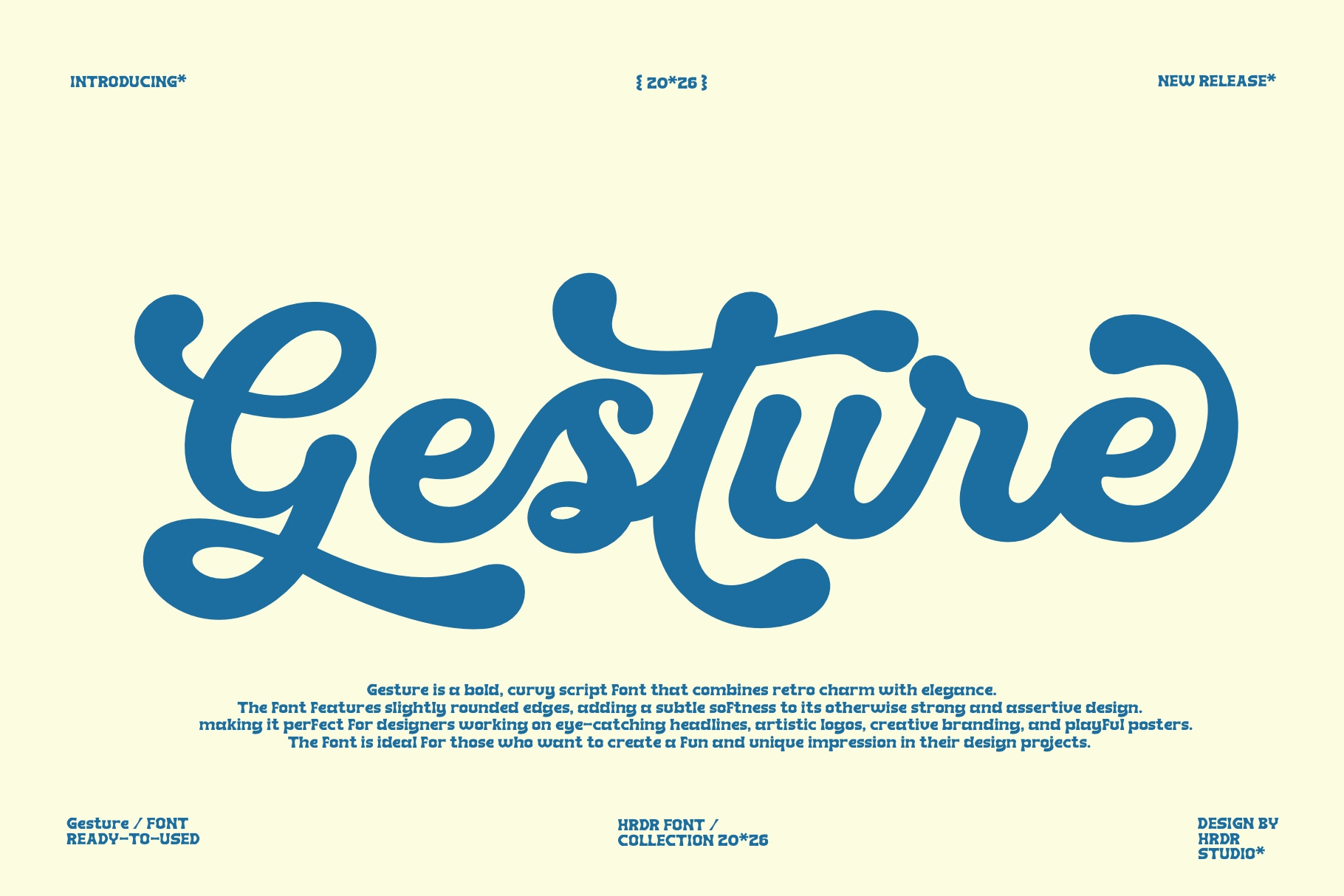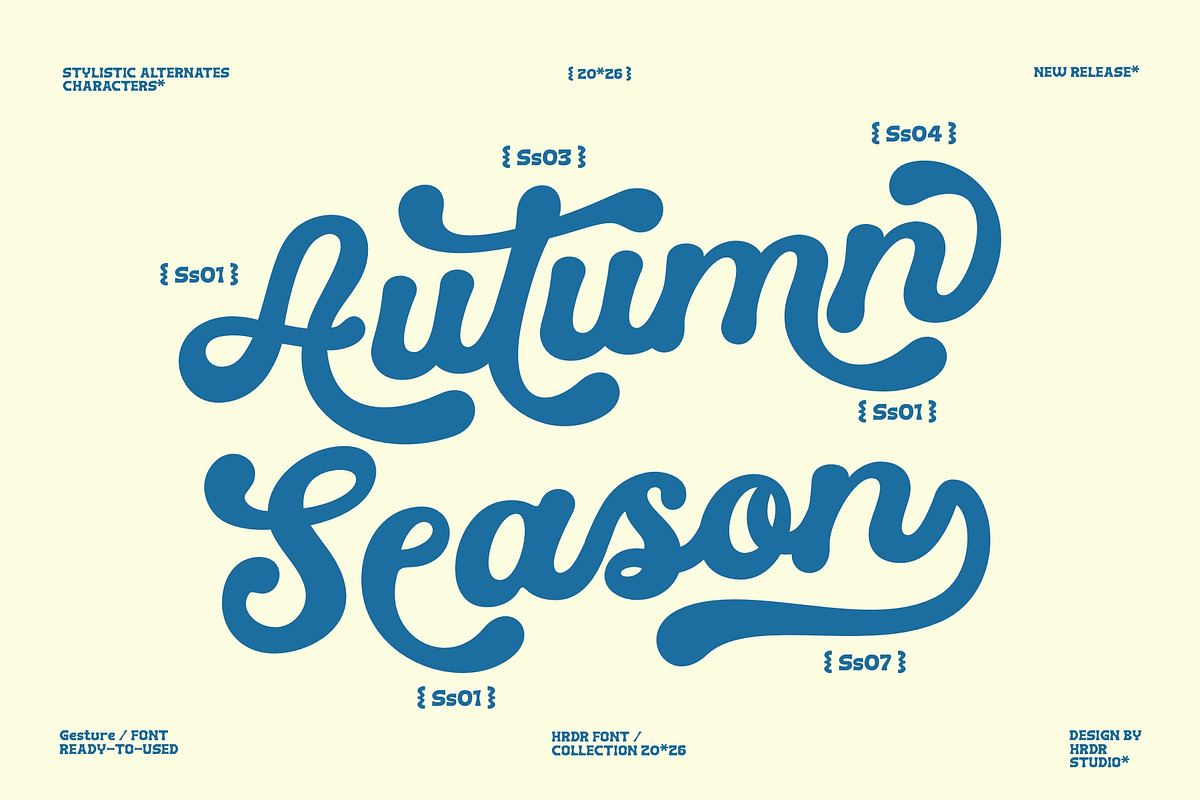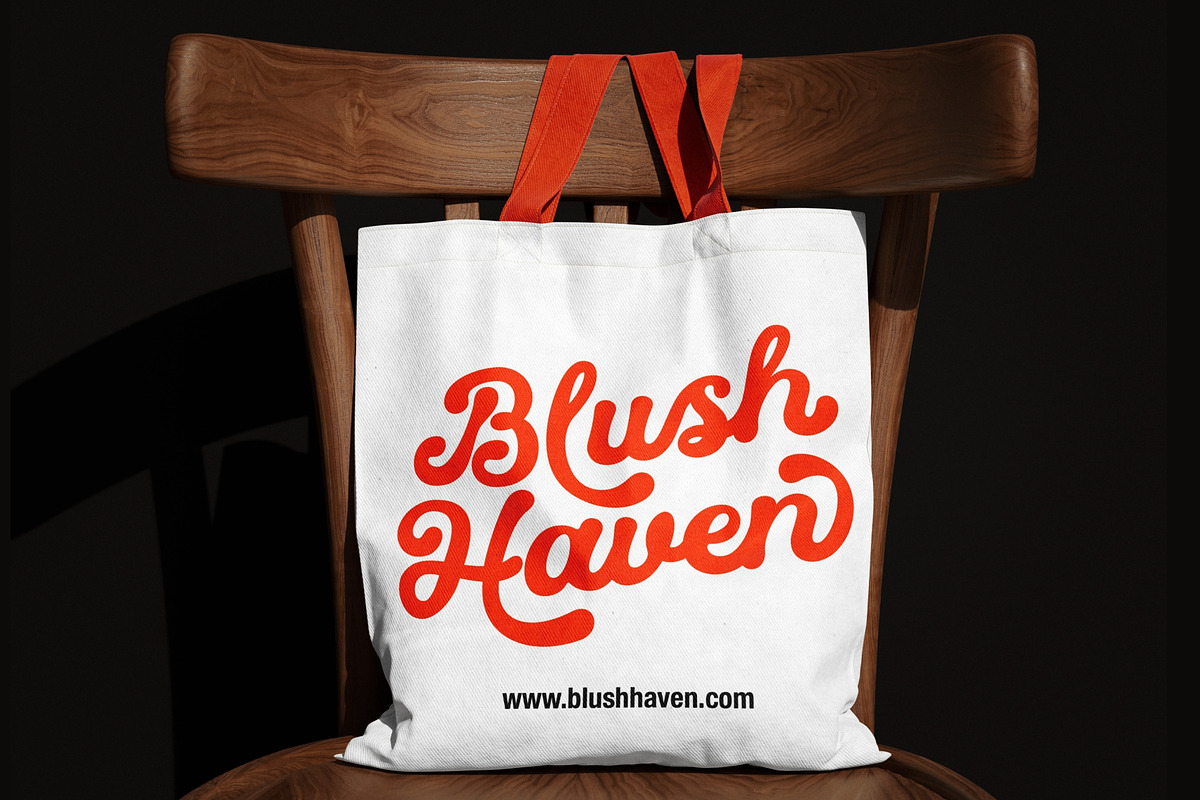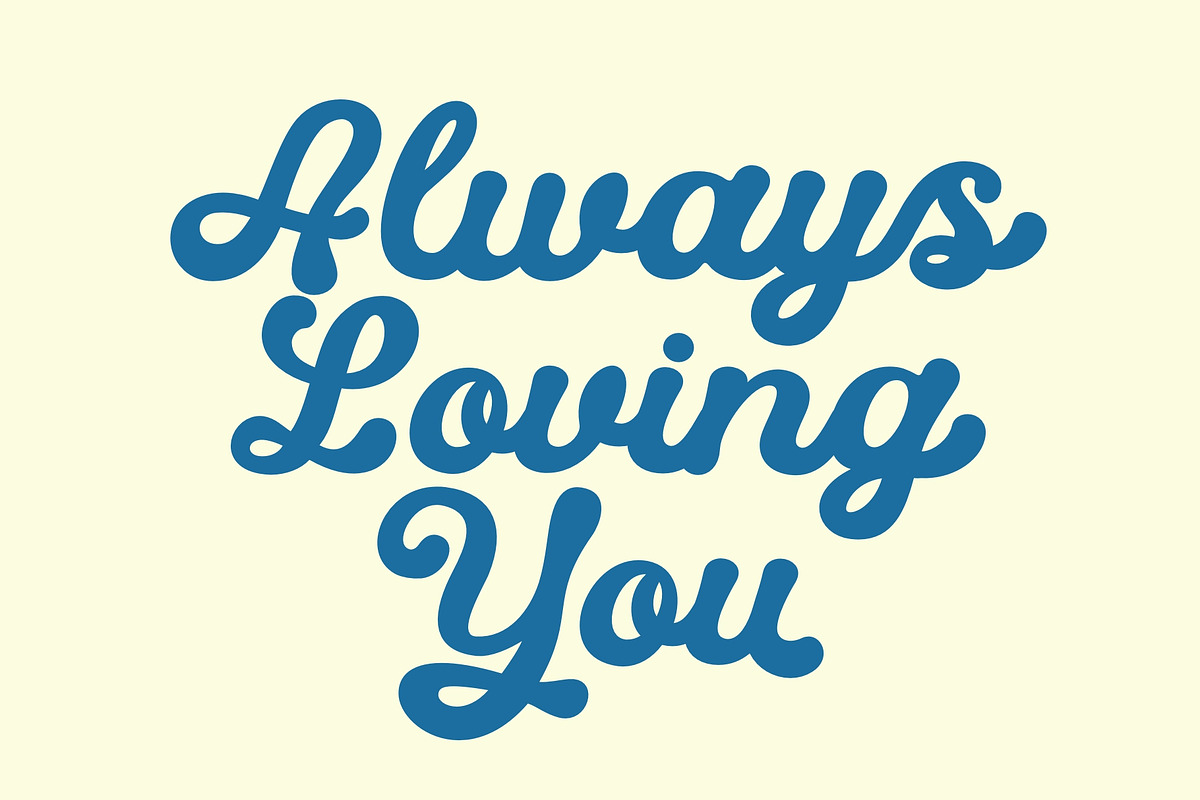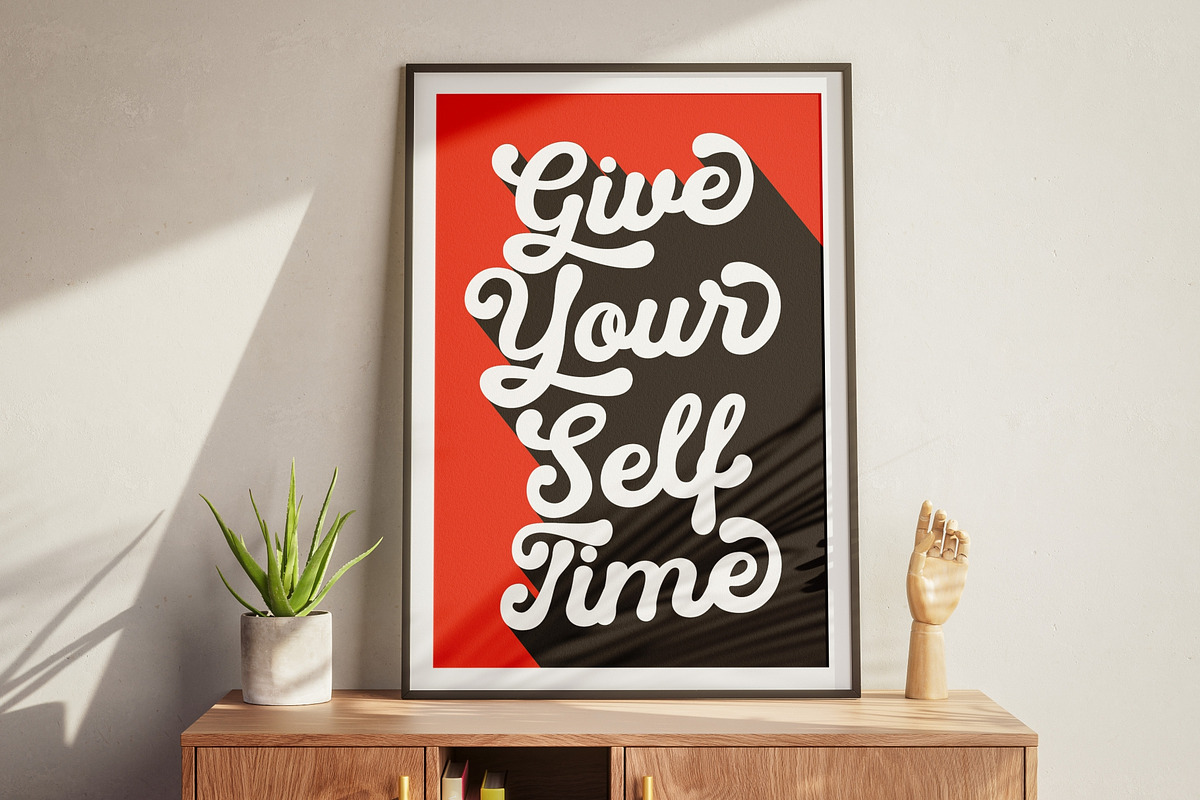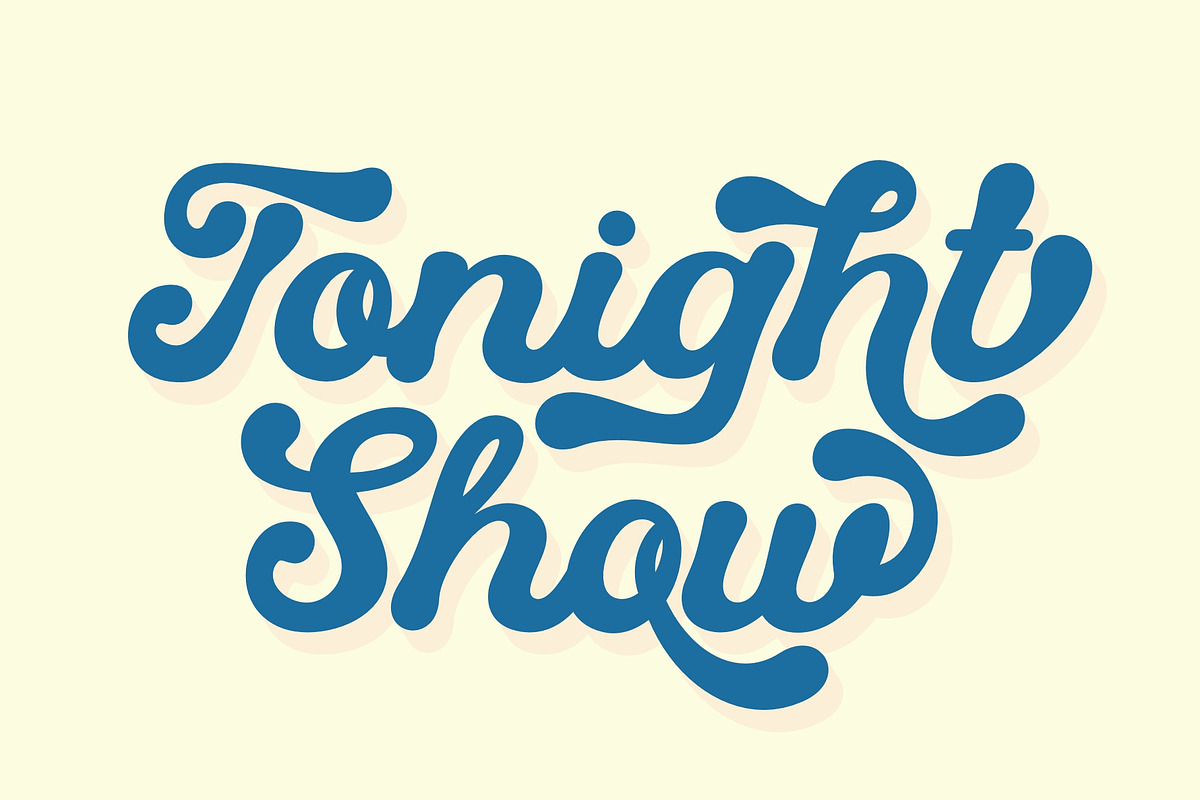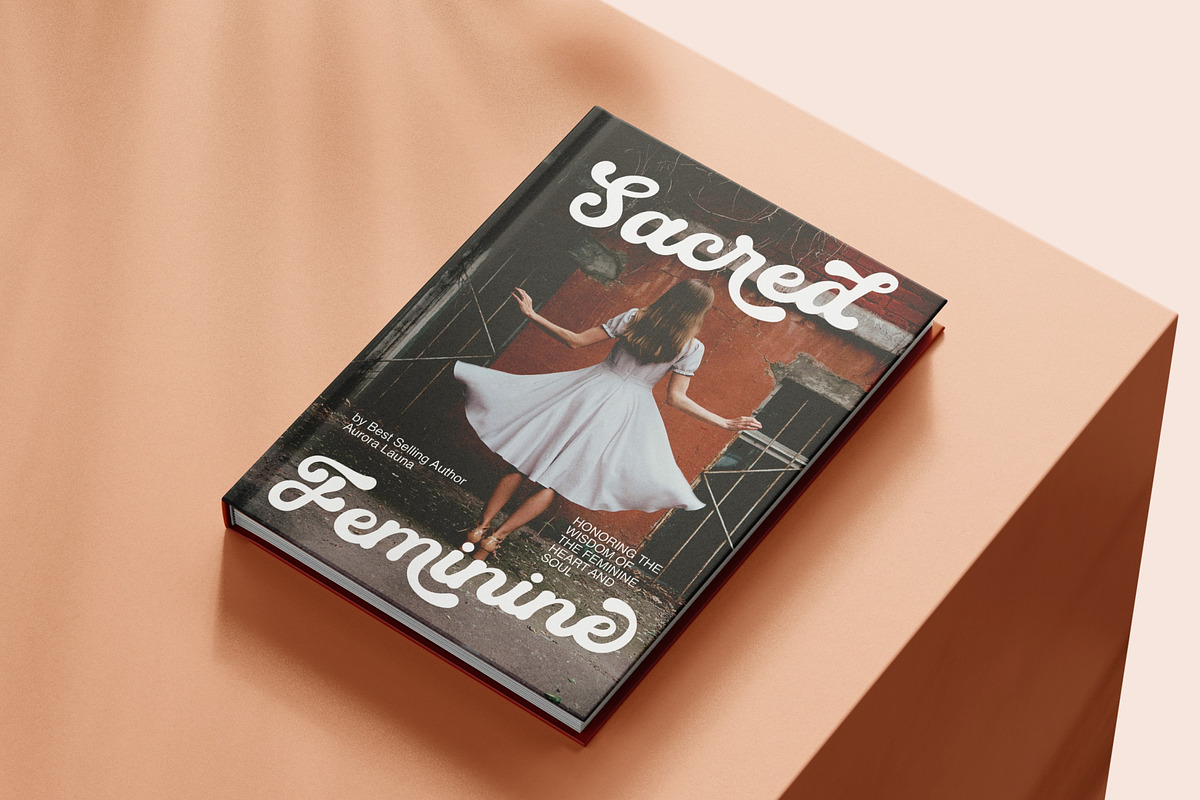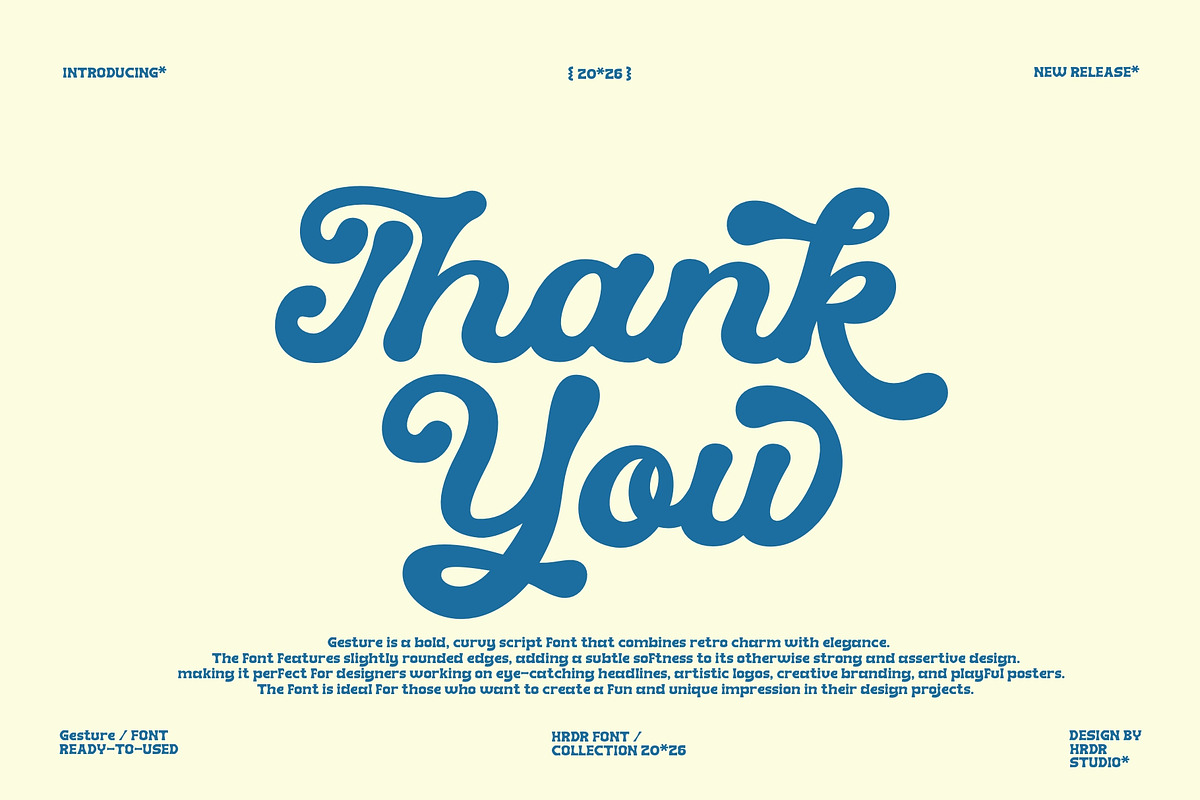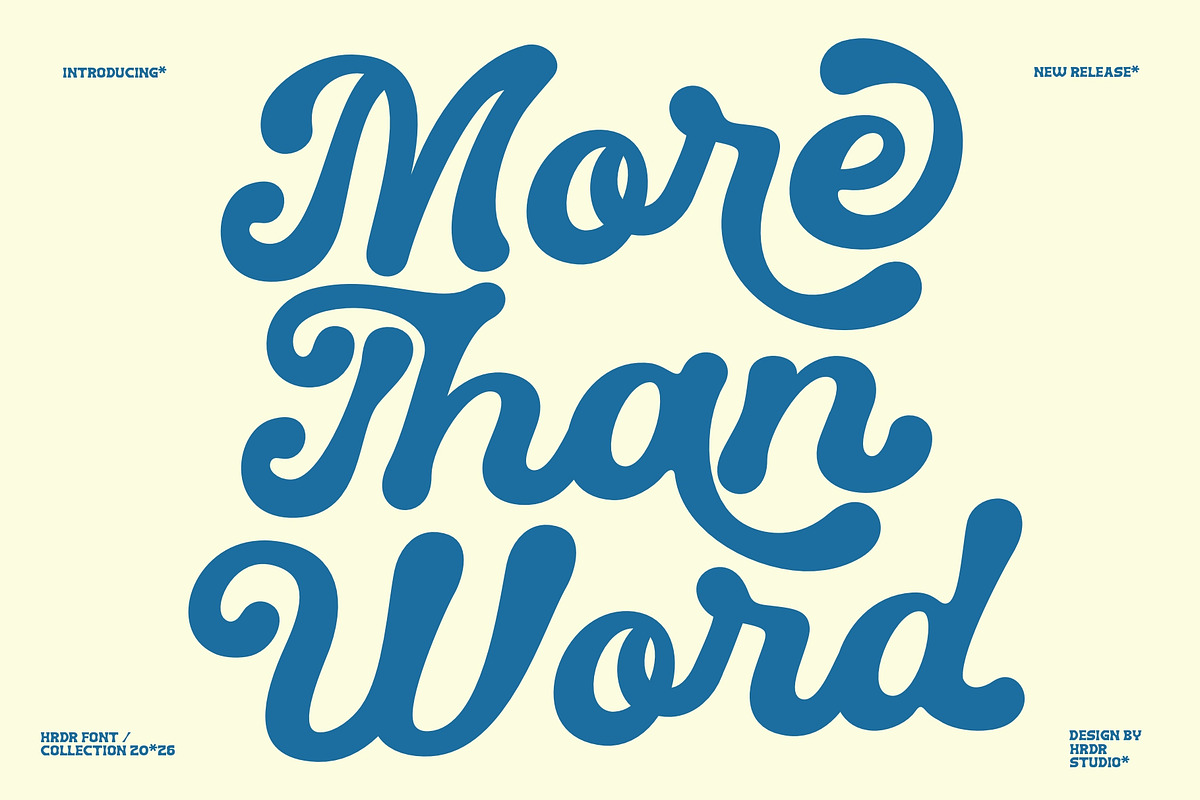
Gesture - Bold Script Font
Gesture is a bold, curvy script font that combines retro charm with elegance. The font features slightly rounded edges, adding a subtle softness to its otherwise strong and assertive design. making it perfect for designers working on eye-catching headlines, artistic logos, creative branding, and playful posters. The font is ideal for those who want to create a fun and unique impression in their design projects.
- numeric & Multilingual support
- Stylistic Alternates with Ss01, Ss02, Ss03, Ss04, Ss05, Ss06, Ss07, Ss08